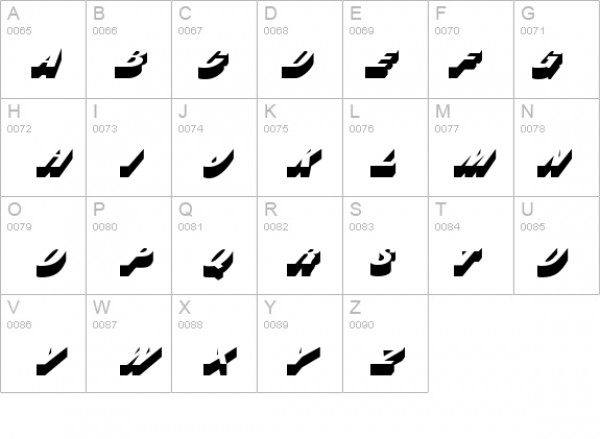
Introducing Bastian Font Family! This font belongs to the sans-serif typeface, a typeface which is comparatively difficult to read. These type of fonts are, therefore, mostly used for headlines and titles. Bastian font is an exceptional font first-rate for any display use. This unfastened font modified into designed and posted for the primary time with the useful resource of Radomir thinks.